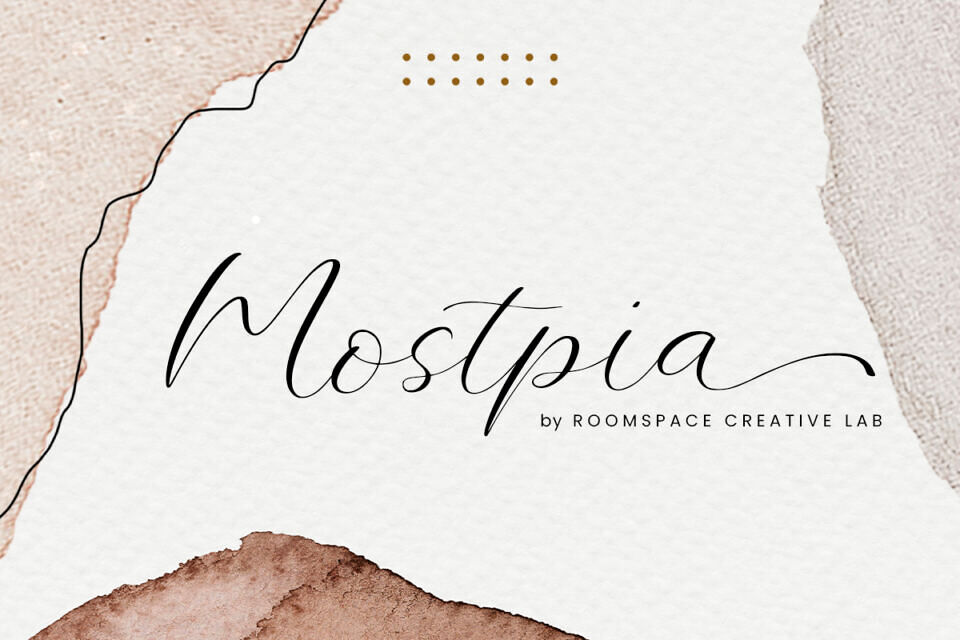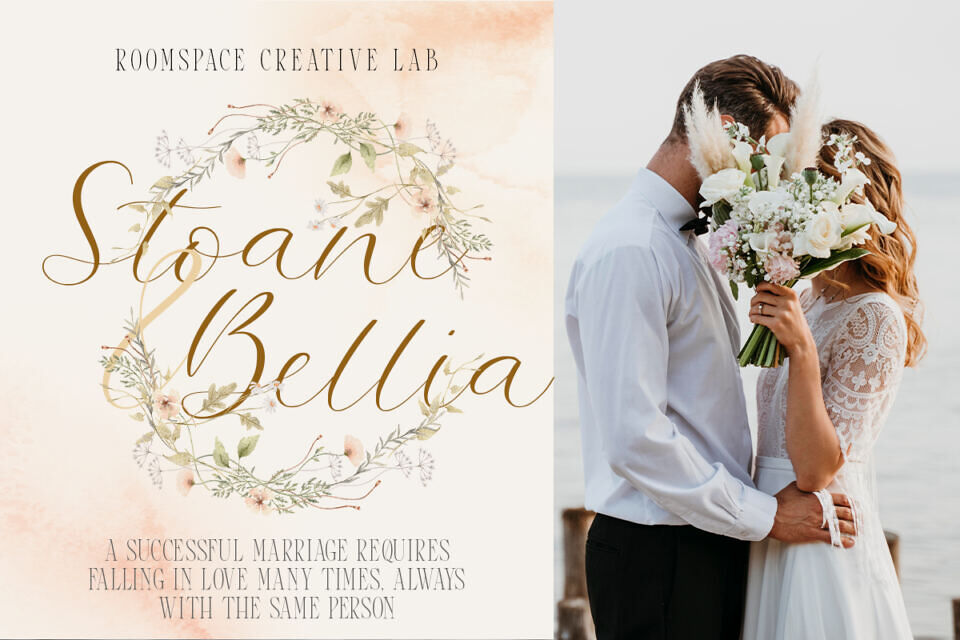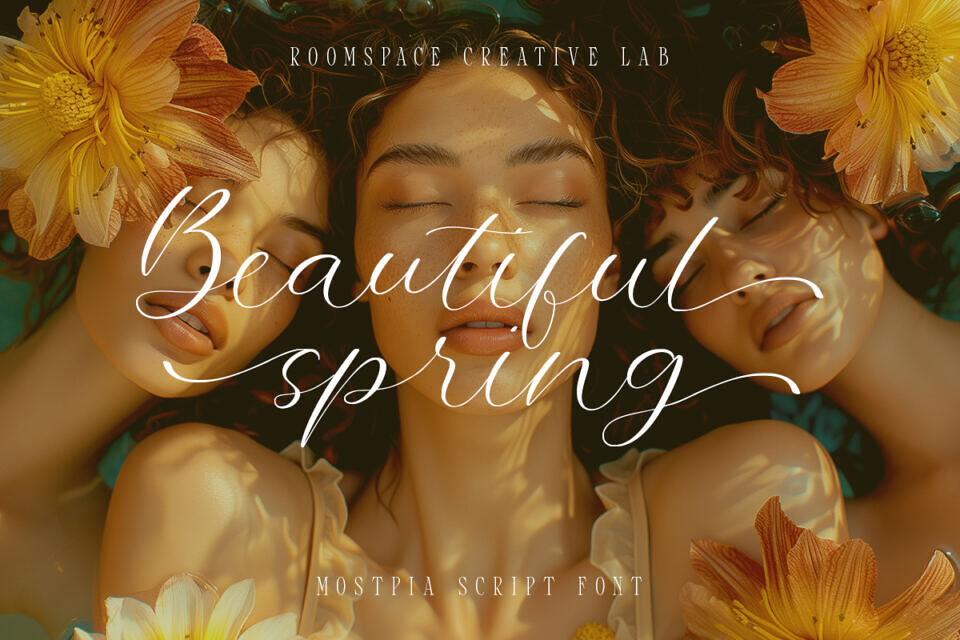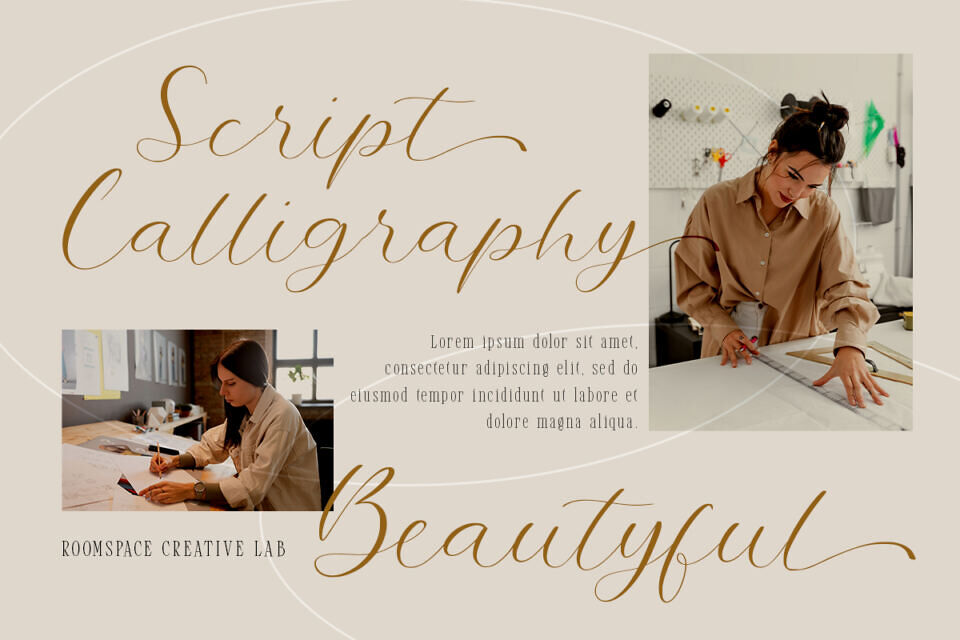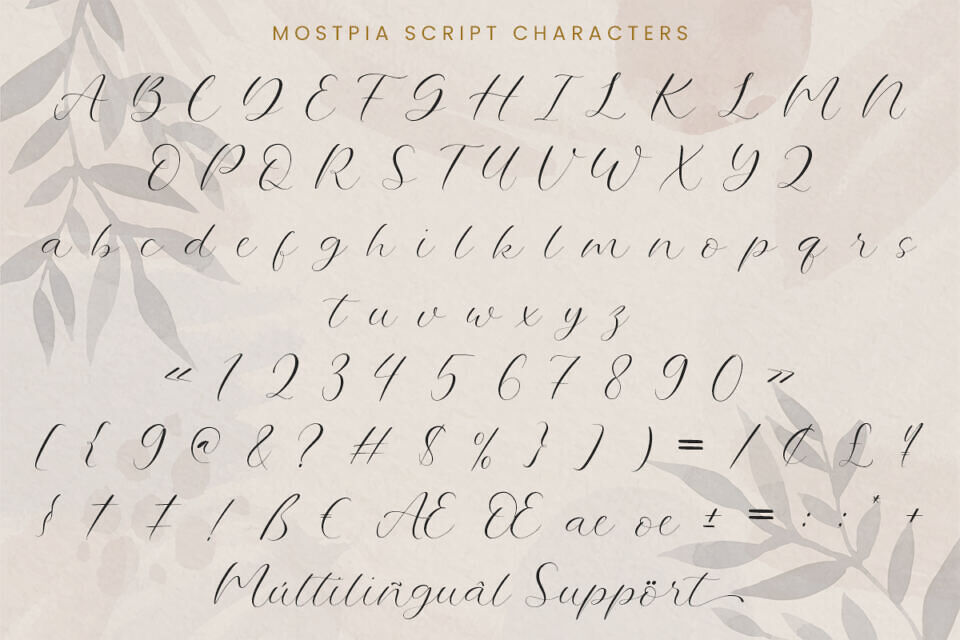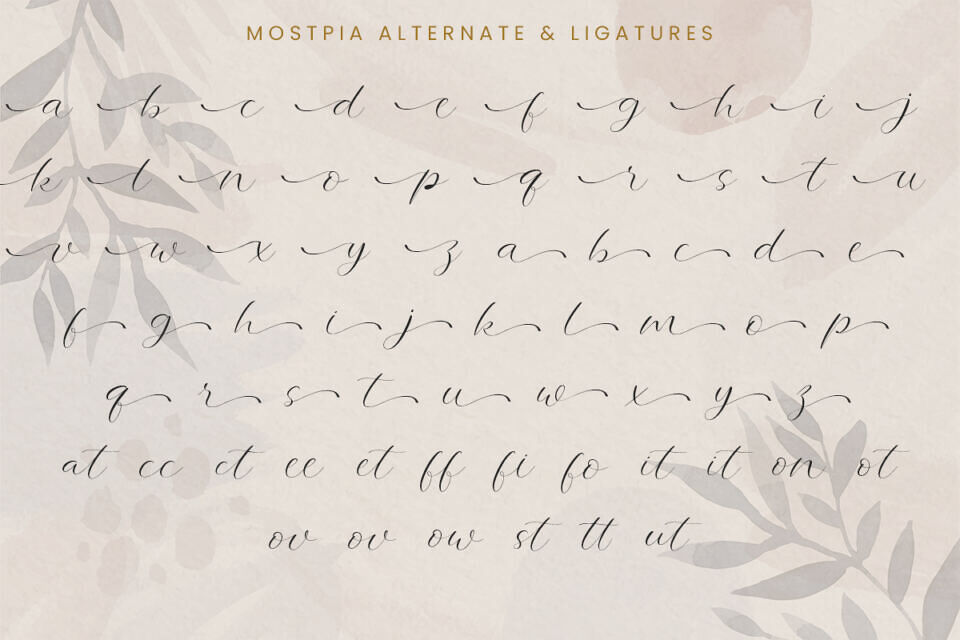
Mostpia is a beautifully elegant handwritten script font designed by the creative minds at Roomspace Creative Lab. Mostpia brings a unique blend of sophistication and warmth, perfect for elevating any design project.
Whether you’re crafting wedding invitations, creating a brand identity, designing social media graphics, or adding a touch of elegance to home decor, Mostpia delivers with style and grace.